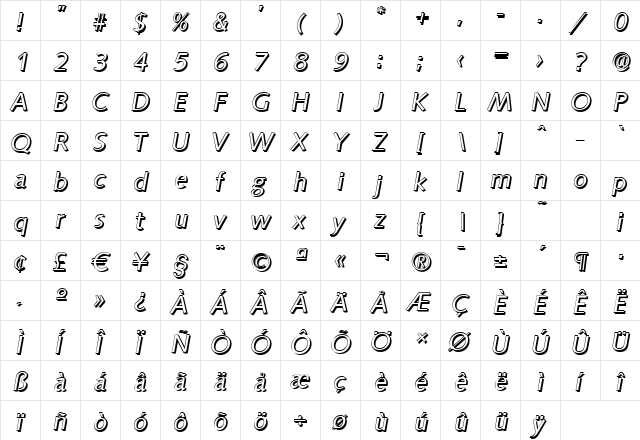
RogerBeckerShadow Italic
Design Context for RogerBeckerShadow Typeface
RogerBeckerShadow brings ornamental detail and strong personality to headlines and identities, where visual impact matters more than quiet functionality. The slanted form adds forward momentum and visual energy.
Font Pairing: Pair with a clean neutral sans-serif for body copy to let RogerBeckerShadow's character lead without overwhelming the composition.
Pro Tip: Use RogerBeckerShadow exclusively at display sizes — it was designed to be seen, not read at length. Let a neutral companion handle body copy.